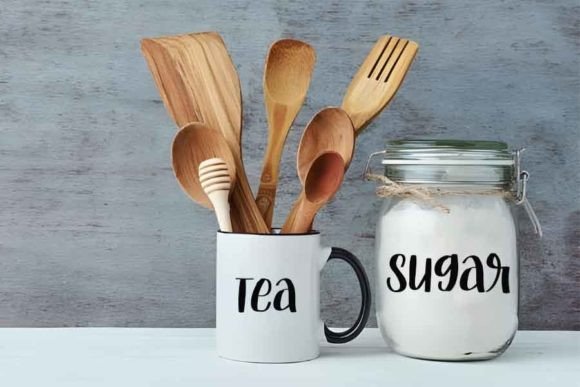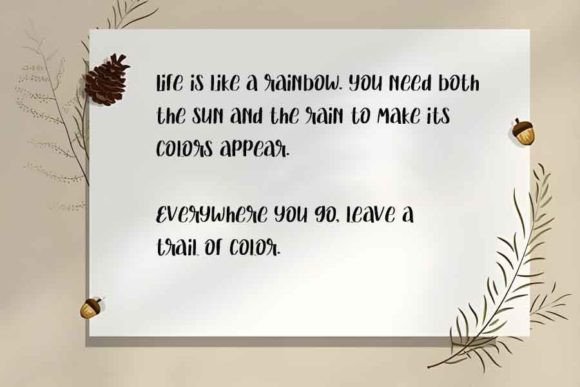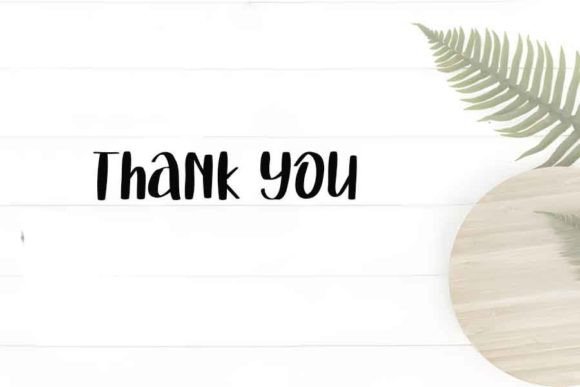
Cactuzee Font: The Sweet and Quirky Handwritten Font for Relaxed Creations
Are you tired of using the same old fonts for your creative projects? Look no further than Cactuzee, a sweet and quirky handwritten font that’s perfect for adding a relaxed touch to your designs. With its informal style and casual vibe, Cactuzee is sure to become a go-to choice for designers and crafters alike.
The Characteristics of Cactuzee Font
Cactuzee is a handwritten font that’s characterized by its playful and carefree style. Its letters are irregularly shaped, with varying line widths and a dash of whimsy. The font has a distinctly informal feel, making it perfect for designs that require a personal touch. Whether you’re creating a logo, a poster, or a social media graphic, Cactuzee is sure to add a touch of warmth and personality to your work.
Why Choose Cactuzee Font?
So why choose Cactuzee over other fonts? Here are just a few reasons why this font stands out:
- Unique and eye-catching: Cactuzee is a one-of-a-kind font that’s sure to grab attention. Its quirky style and playful vibe make it perfect for designs that need to stand out from the crowd.
- Easy to read: Despite its informal style, Cactuzee is surprisingly easy to read. The letters are clear and legible, making it perfect for designs that require a lot of text.
- Versatile: Cactuzee is a versatile font that can be used for a wide range of designs, from logos and posters to social media graphics and more.
- Perfect for crafty projects: Cactuzee is a font that’s tailor-made for crafty projects, such as handmade cards, DIY tutorials, and more.
How to Use Cactuzee Font in Your Designs
Using Cactuzee in your designs is easy. Here are a few tips to get you started:
- Pair it with bold fonts: Cactuzee pairs perfectly with bold fonts, which can help to create a striking contrast and add visual interest to your designs.
- Use it for headings: Cactuzee is perfect for headings and titles, where its playful style can really shine.
- Add some texture: To really make Cactuzee pop, try adding some texture to your design. This could be a subtle background image, or a more dramatic texture overlay.
Cactuzee Font in the World of Design
Cactuzee is a font that’s perfectly suited to the world of design, where creativity and self-expression are key. Whether you’re a professional designer or a DIY enthusiast, Cactuzee is a font that’s sure to inspire your creativity and help you to create unique and eye-catching designs.
Cactuzee Font for Crafters
Cactuzee is also a font that’s tailor-made for crafters, who love to add a personal touch to their projects. Whether you’re making handmade cards, creating DIY tutorials, or crafting beautiful journal pages, Cactuzee is a font that’s sure to add a touch of whimsy and personality to your work.
In conclusion, Cactuzee is a sweet and quirky handwritten font that’s perfect for designers and crafters who want to add a relaxed touch to their creations. With its informal style and casual vibe, Cactuzee is a font that’s sure to inspire your creativity and help you to create unique and eye-catching designs. So why not give it a try and see what amazing creations you can come up with?
- Handwritten font with a playful and carefree style
- Informal style and casual vibe
- Unique and eye-catching
- Easy to read
- Versatile and perfect for a wide range of designs
Recommended for:
- Designers who want to add a personal touch to their creations
- Crafters who love to make handmade cards, DIY tutorials, and more
- Anyone who wants to create unique and eye-catching designs